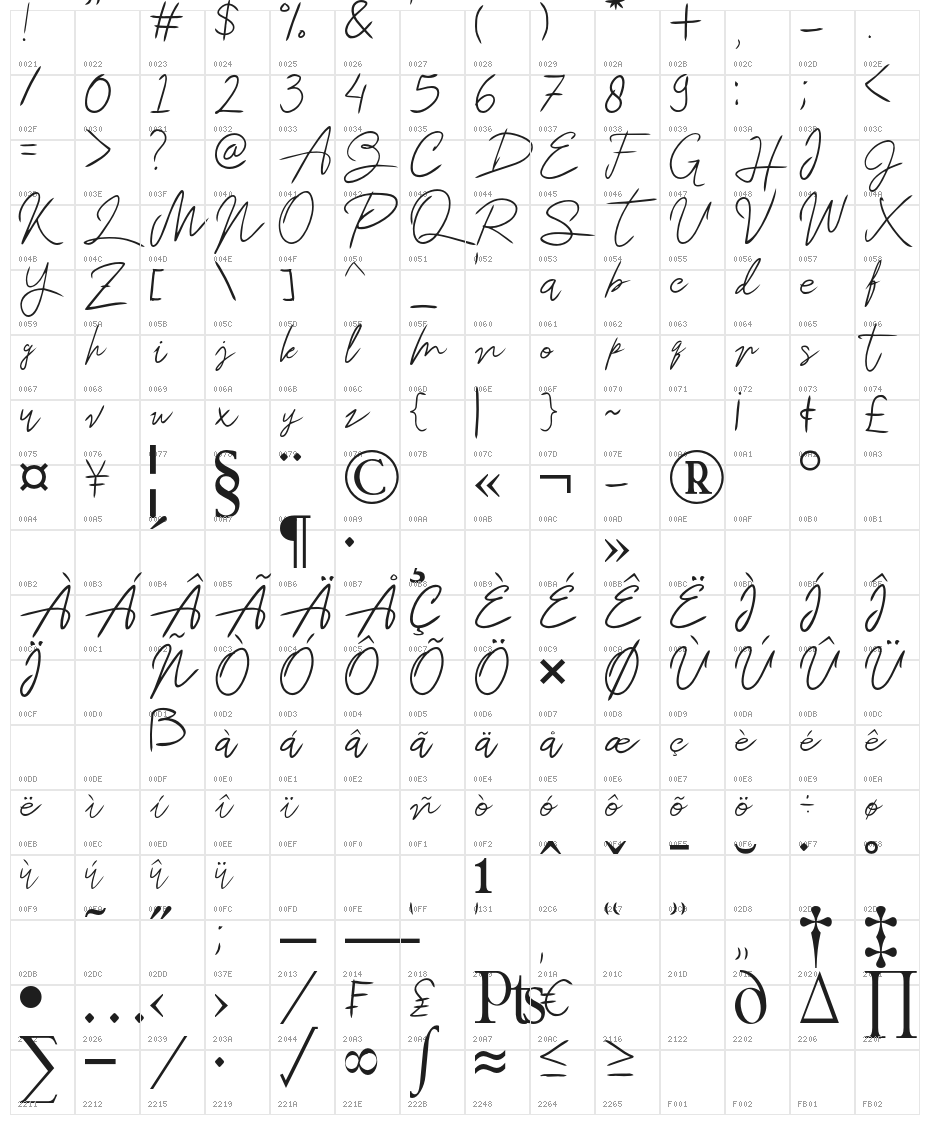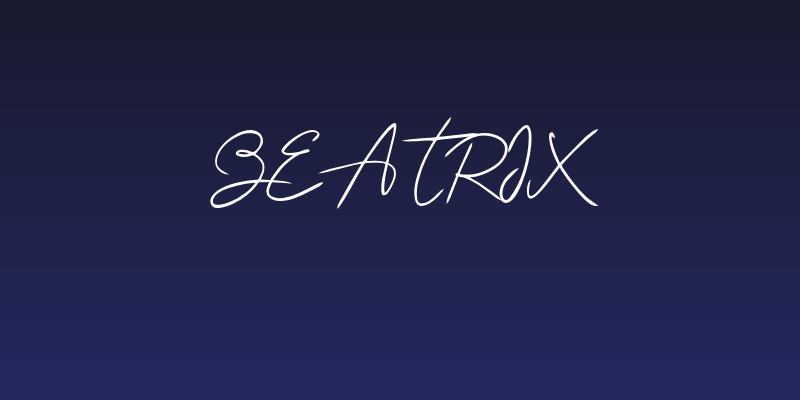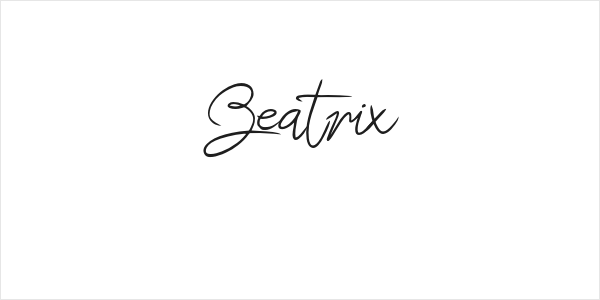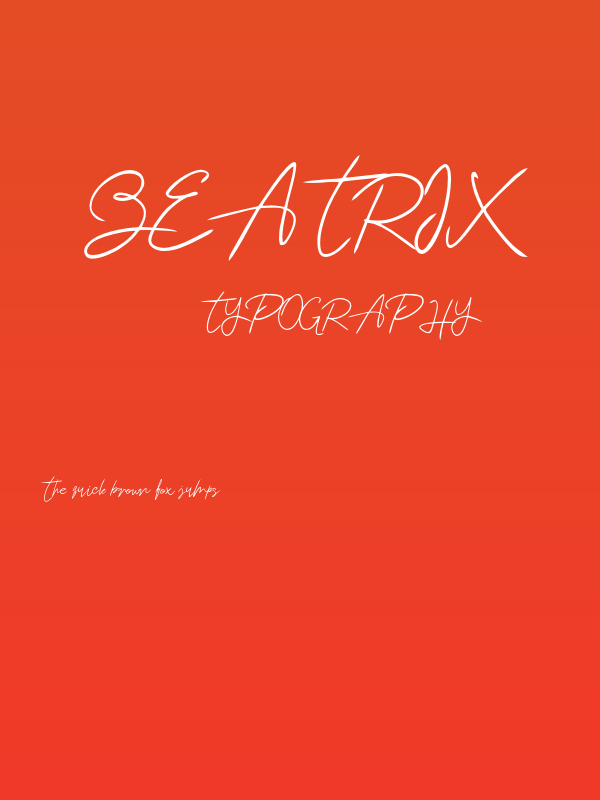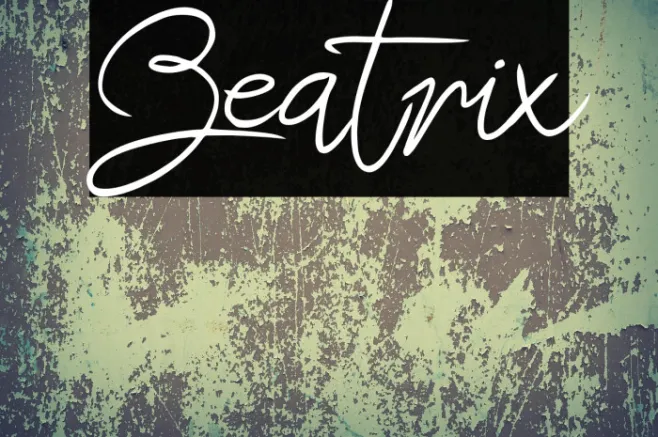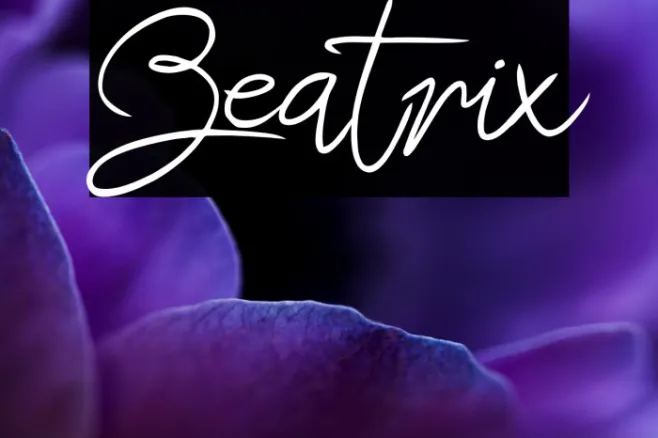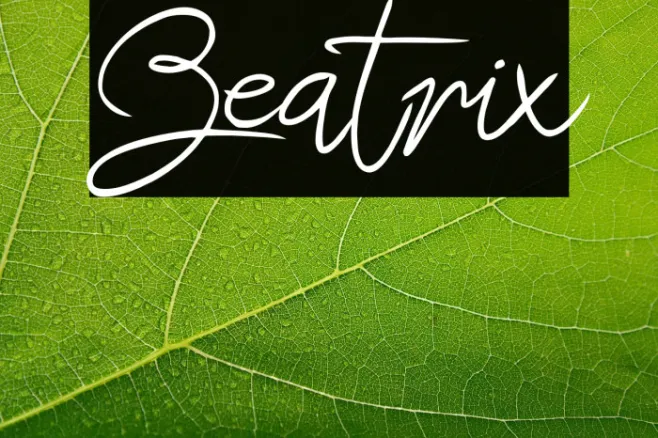
Beatrix Font
Beatrix Description
This font exudes a lively and dynamic energy with its fluid, cursive style. The letters are interconnected, giving it a seamless flow that mimics natural handwriting. The uppercase letters are bold and slightly slanted, while the lowercase letters maintain a consistent rhythm and elegance. The numerals are distinct yet harmonize well with the overall script. Special characters are creatively integrated, adding a playful touch. This font is perfect for projects that require a personal, human touch, such as invitations, greeting cards, or branding materials that aim to convey warmth and approachability.
| Proposed Projects | Ideal for invitations, greeting cards, personal branding, and creative projects. |